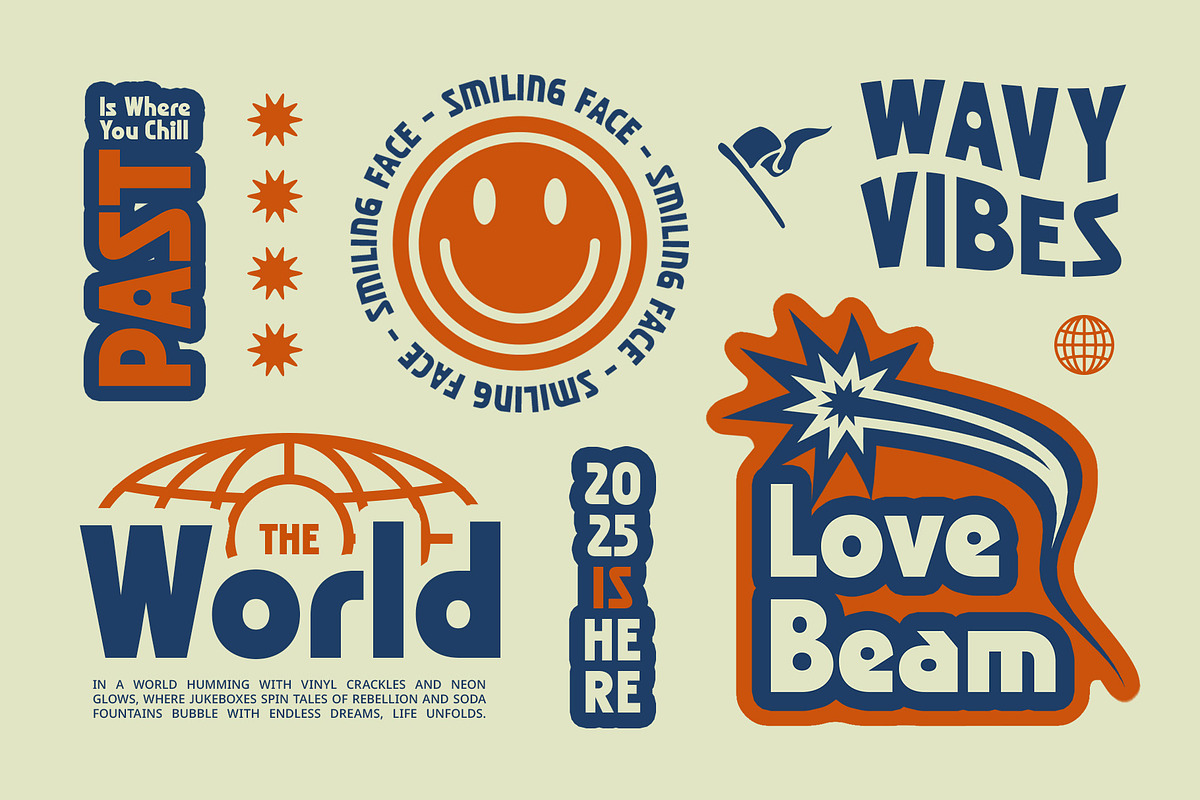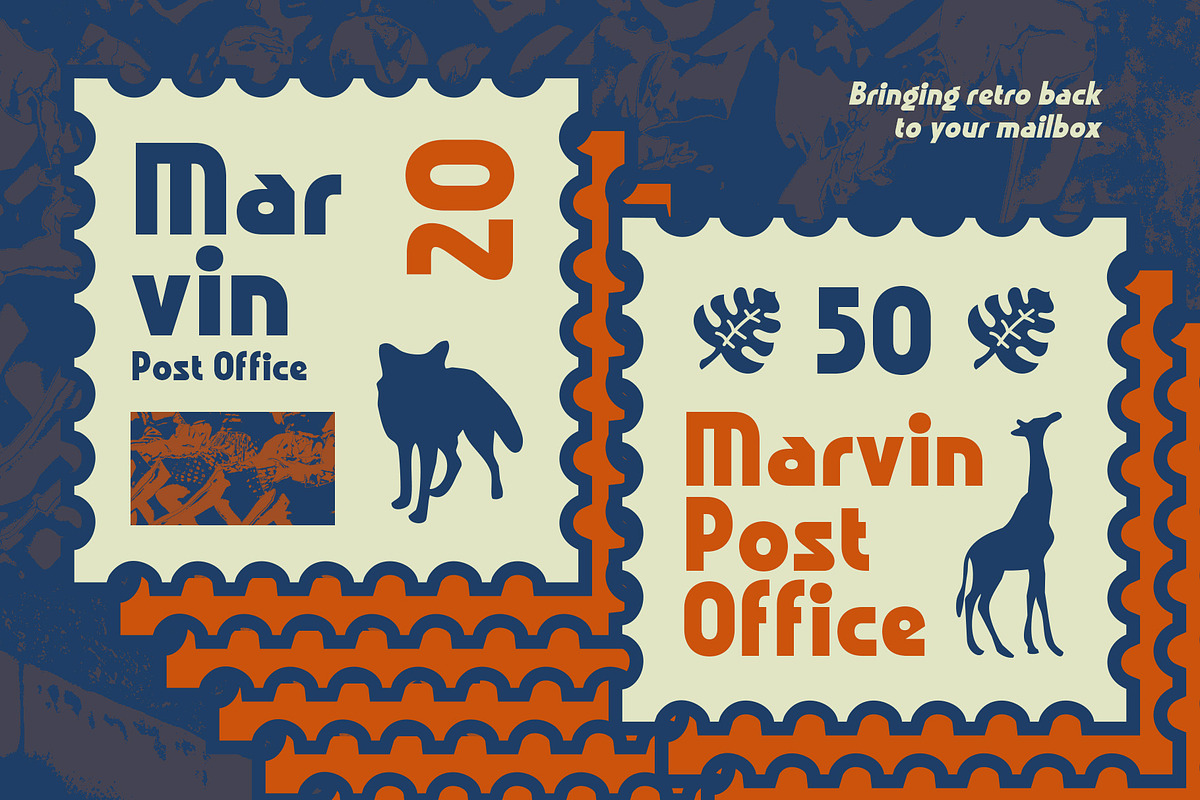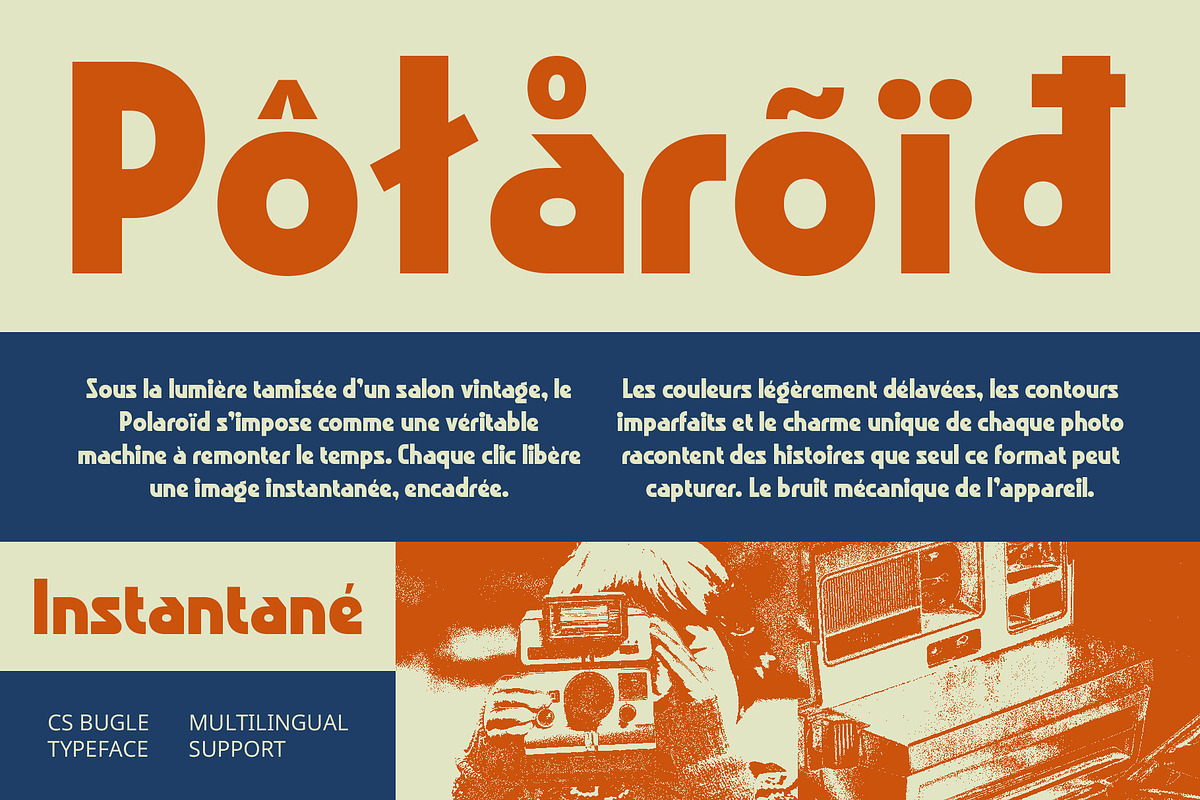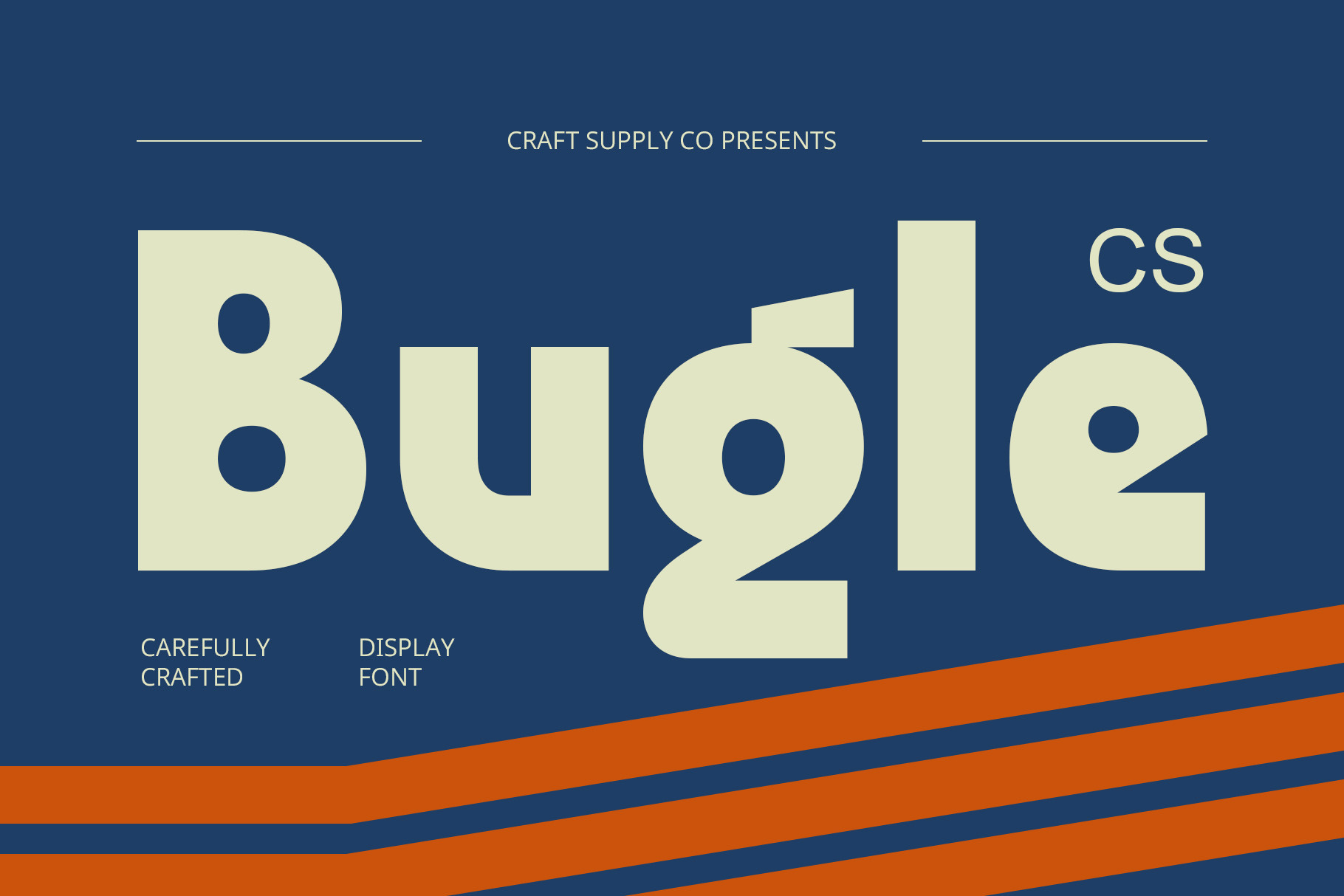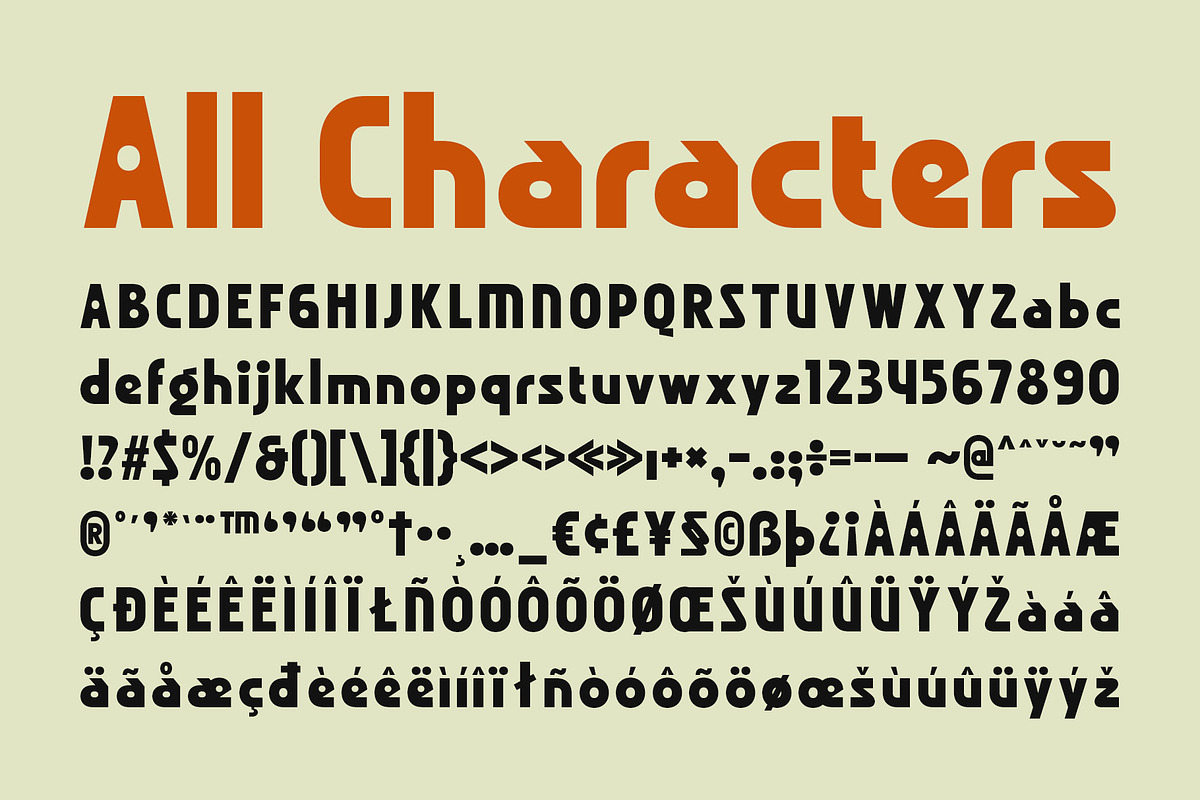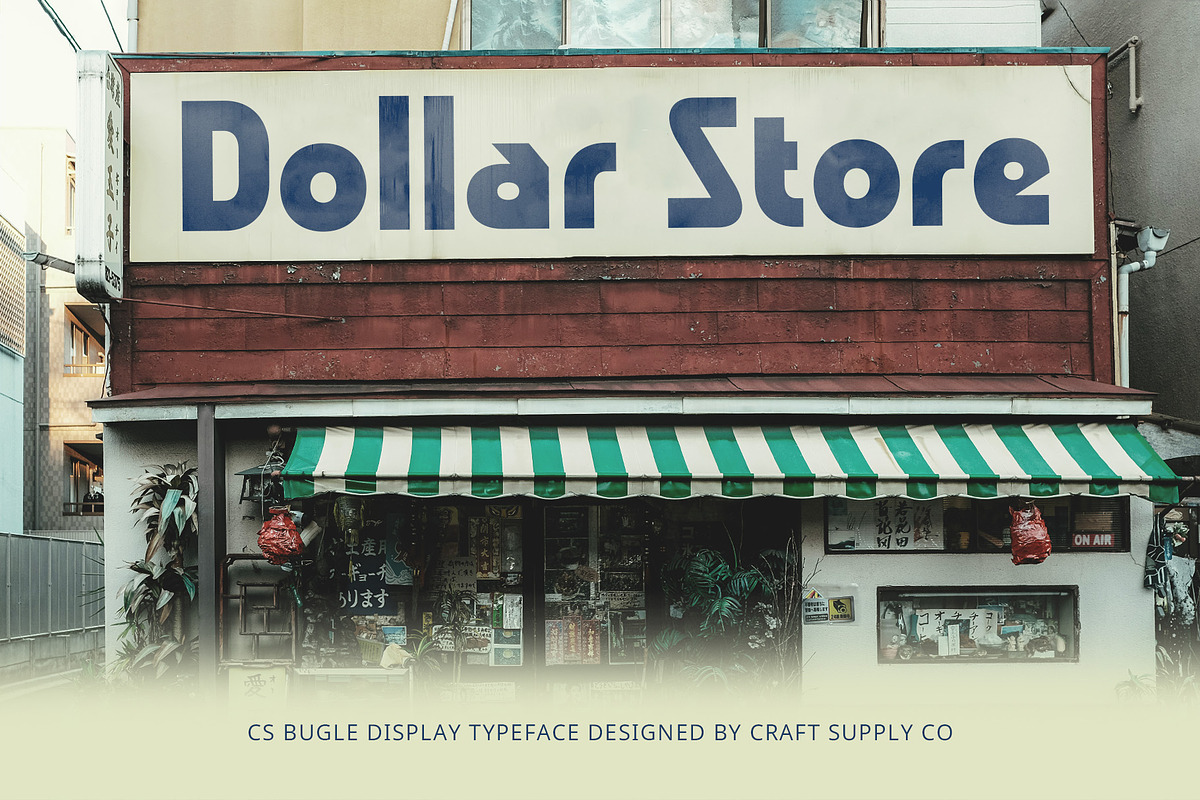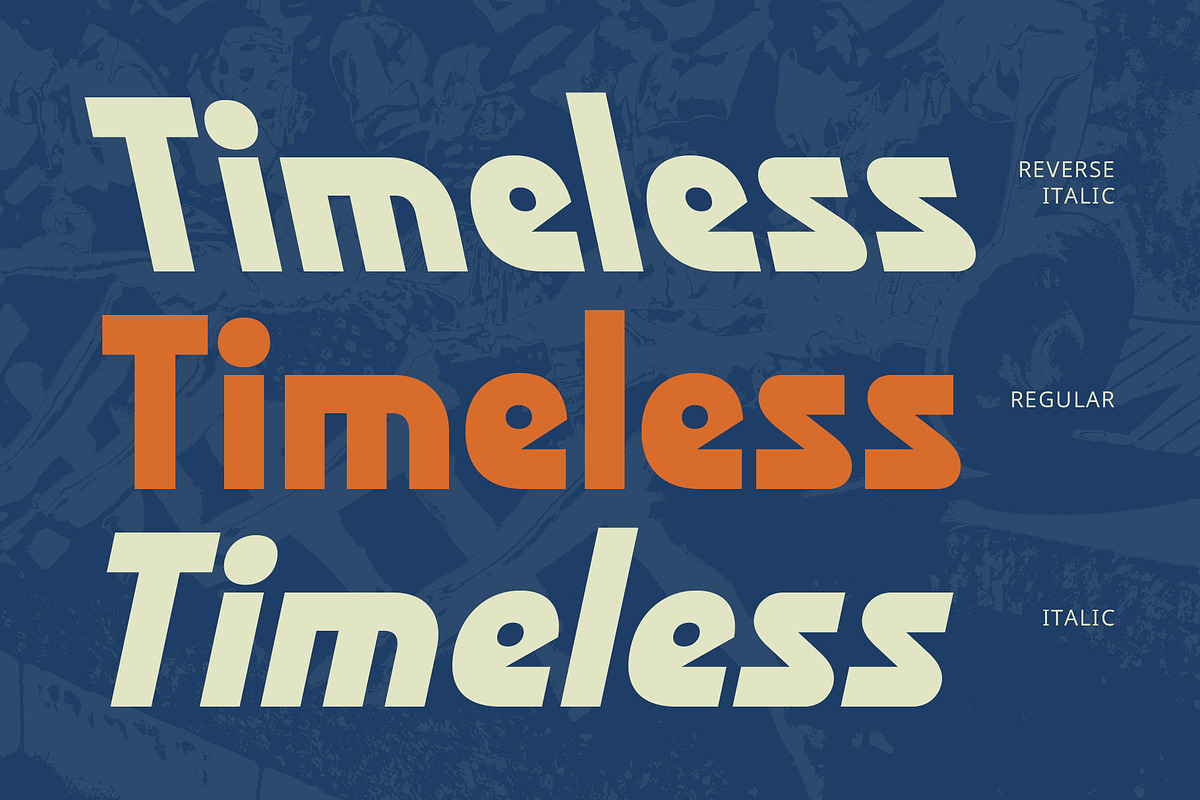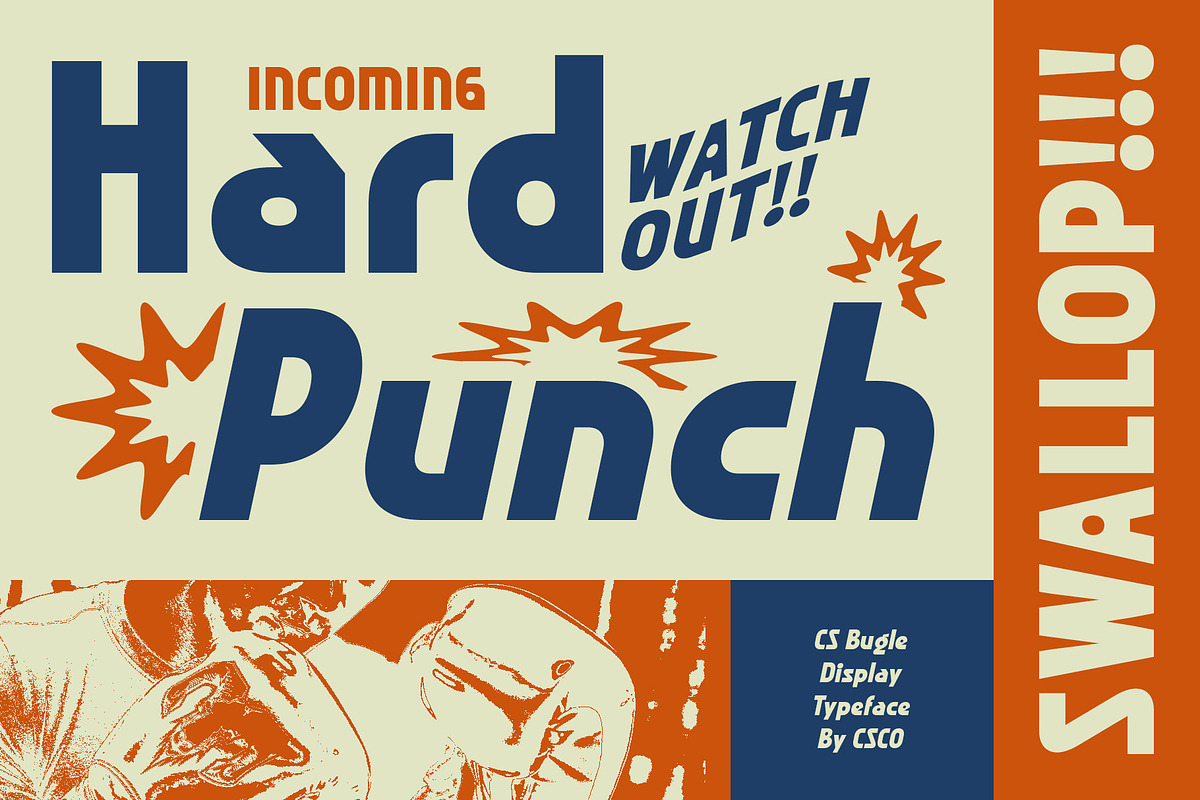
CS Bugle – Retro Font
CS Bugle – Retro Font: Bold and Nostalgic 80s Vibes
Classic 80s Aesthetics with a Modern Twist CS Bugle – Retro Font is a bold sans-serif typeface that captures the vibrant and energetic spirit of the 1980s. Featuring solid letterforms with thick, clean lines and no serifs, this font brings the iconic 80s retro style into the modern era. It combines a sense of nostalgic vintage charm with contemporary design elements, offering a perfect balance between past and present.
Energetic and Eye-Catching Design The thick, solid lines of CS Bugle make it an ideal choice for projects that demand attention. The font’s clean, geometric structure ensures it stands out in any context, while the absence of serifs keeps it fresh and bold. Whether you’re designing posters, logos, or branding materials, CS Bugle is perfect for creating a strong, eye-catching impression.
Perfect for Nostalgic and Retro-Inspired Designs If you’re looking to capture the retro spirit of the 80s, CS Bugle is the perfect fit. This font is ideal for designs that emphasize nostalgia, such as vintage posters, event promotions, branding for retro-themed products, and more. Its bold letterforms create a powerful presence, making it a versatile choice for any project that seeks to evoke the bold and exciting aesthetics of the 80s.